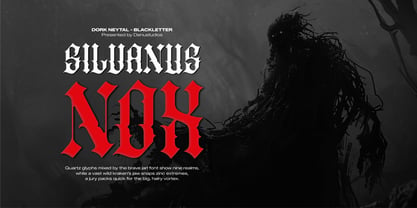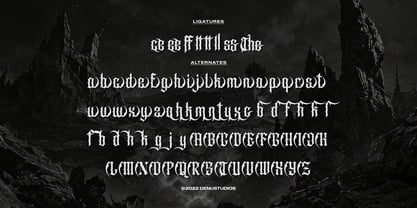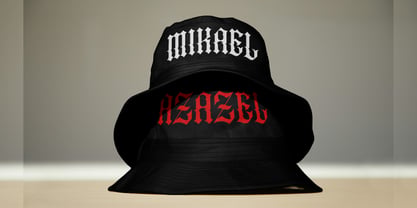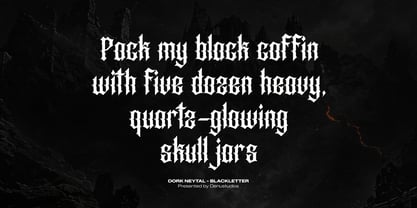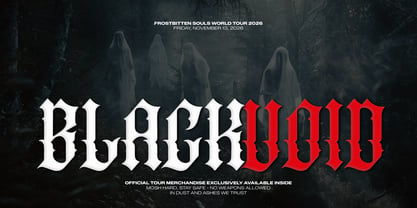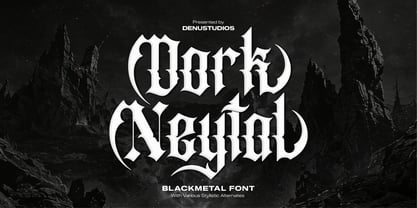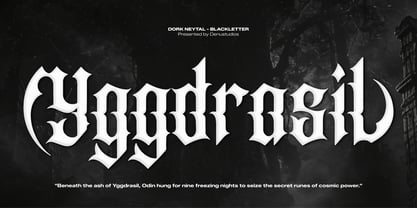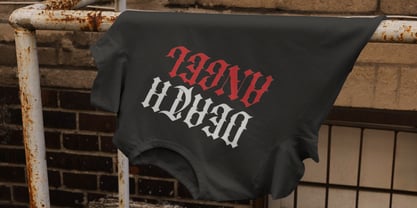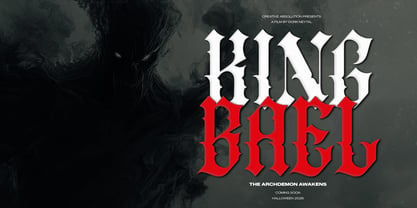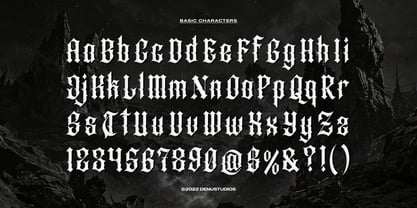
Dork Neytal
Dork Neytal | Black Metal Font, from Denustudios, suitable for any projects such as: logos, branding projects, homeware designs, product packaging, mugs, quotes, posters, shopping bags, t-shirts, book covers, name card, invitation cards, greeting cards, label, photography, watermark, special events, and all your other lovely projects that need Black Metal a taste.